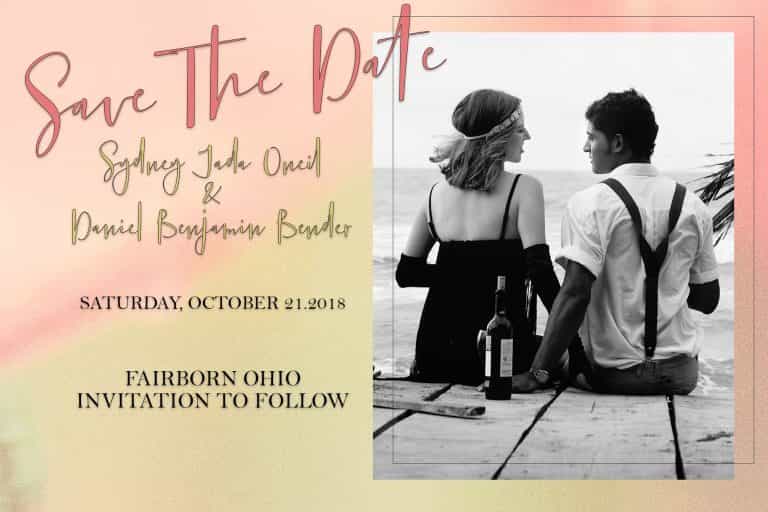
Discover Bellissima Script Font, part of the Brush Handwritten collection—a versatile and unique font perfect for adding a personal touch to your projects. Download it for free and enjoy crafting designs with style, from invitations to social media posts. This font is available exclusively for personal use, giving you the freedom to create without limits. Unlock your creativity with Bellissima Script Font today!
Introducing Bellissima Font. This hand writing font is perfect for branding and decorating your any project. Introduce it to the other fonts and add style in your project. Bellissima is a font designed in the semibold handwriting style.